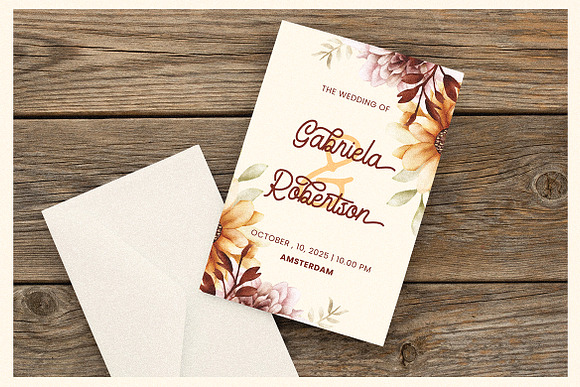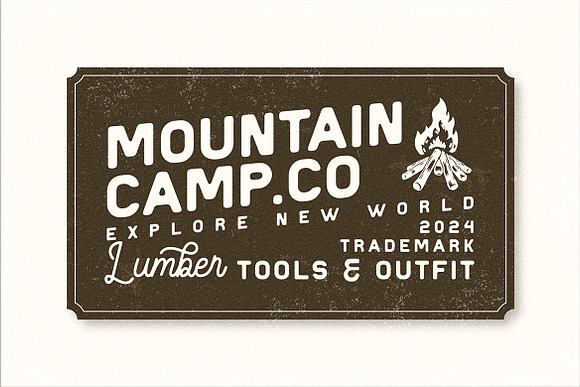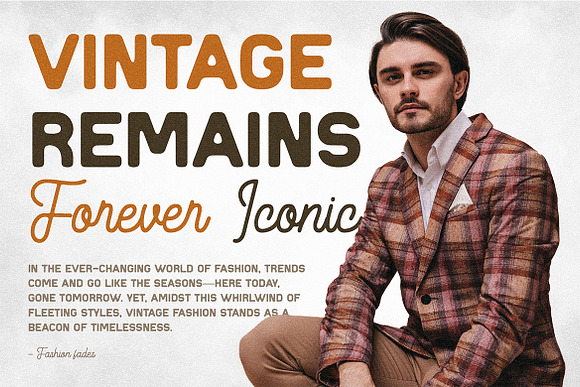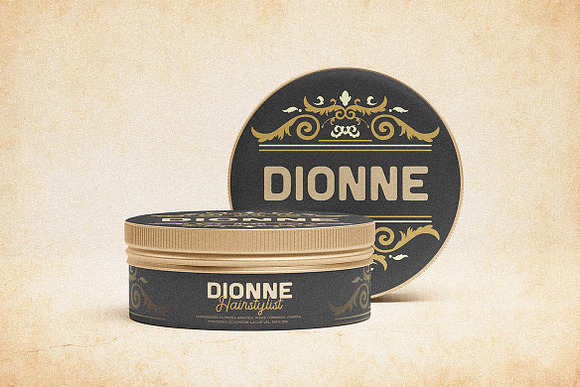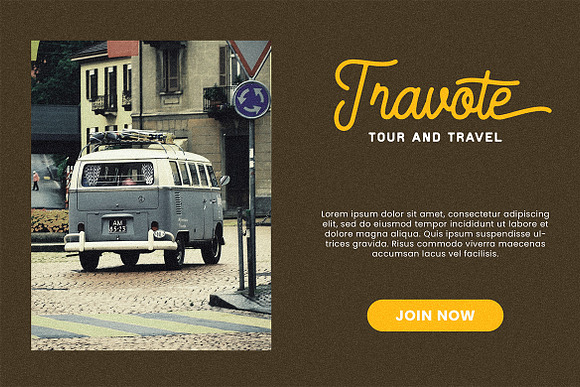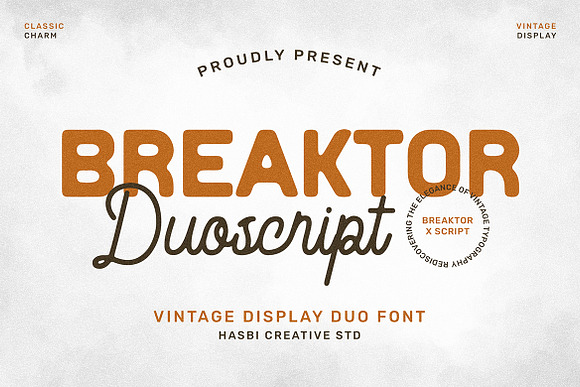
Breaktor - Vintage Duo Font
Breaktor Vintage Duo Font offers a versatile collection of two complementary font styles. The elegant script monoline font provides a vintage handwritten look, while the bold sans serif font offers a modern and striking aesthetic. Perfect for creating unique designs for logos, posters, invitations, and more. This font is: Versatility Vintage Aesthetic High Quality Easy to use Multilingual support What's will you get in the zip : Breaktor Script - TTF Breaktor Script - OTF Breaktor Sans Serif - TTF Breaktor Sans Serif - OTF